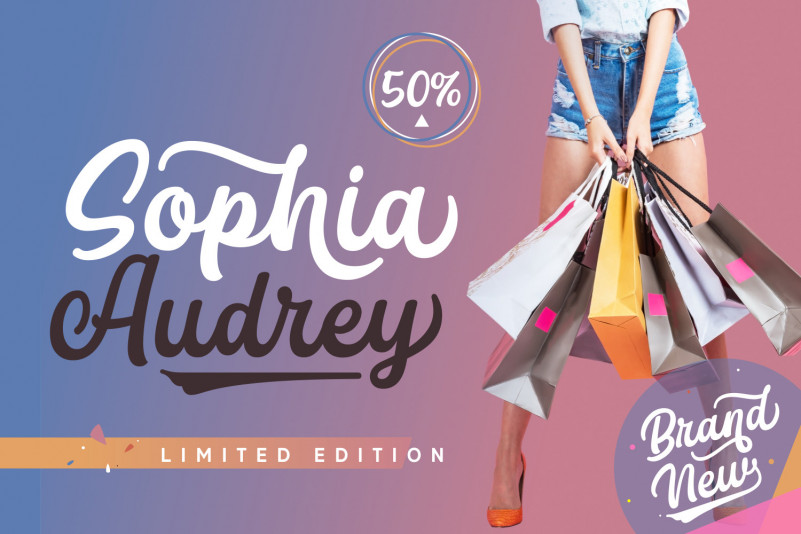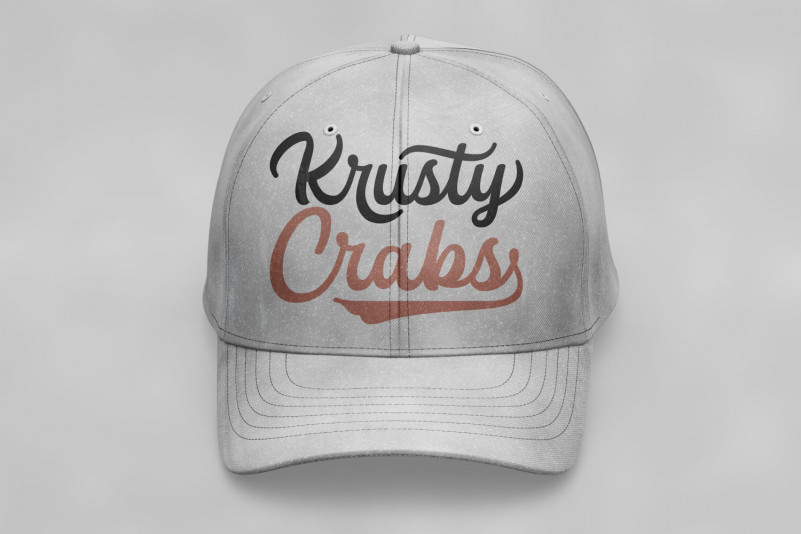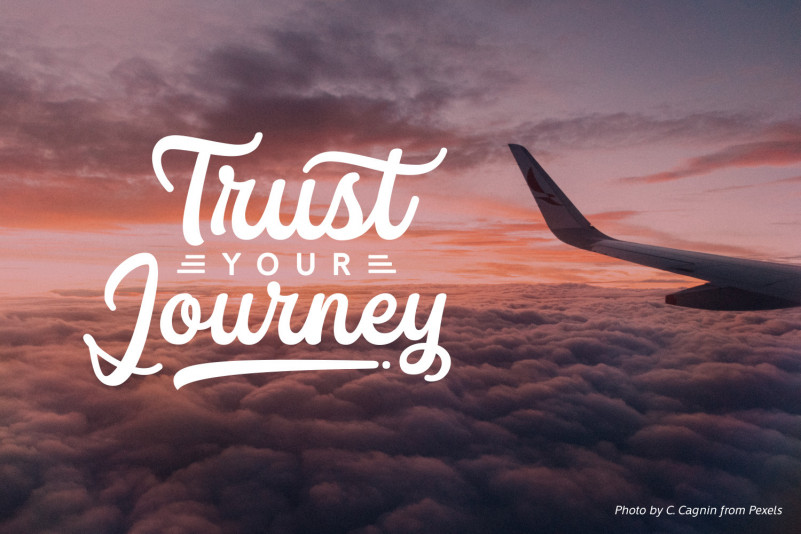
Donalia Script Font
Donalia is a modern script font with an elegant style that makes it suitable for elegant projects! Add it to wedding projects, birthday cards, thank you notes, watermarks, name tags, and so much more! This font is PUA encoded which means you can access all of the glyphs and swashes with ease!